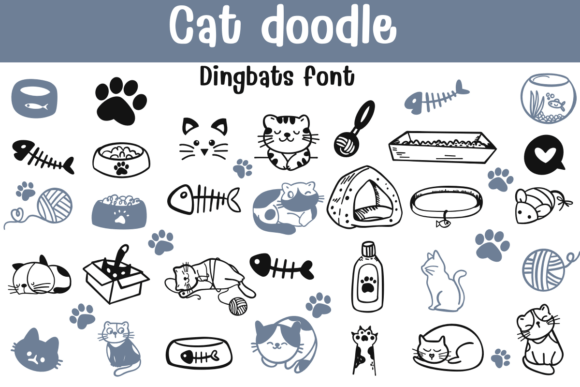
Get Ready to Purr-fect Your Designs with Cat Doodle Font
As a designer, have you ever stared blankly at a blank canvas, trying to come up with the purr-fect idea to showcase your love for cats? We’ve all been there. One day, while browsing through a cat cafe, I stumbled upon a quirky cat-themed illustration that sparked my creativity. I knew right then that I wanted to create something special – a font that captured the whimsy and charm of our feline friends.
Enter the Cat Doodle Font, a delightful dingbats font packed with adorable kitty-themed illustrations. With Cat Doodle Font, designers can add a touch of personality to their designs, from pet store promotions to animal lover’s gifts. Whether you’re a seasoned pro or a beginner, this font is a valuable addition to your design toolkit, offering endless possibilities for creative expression.
Cat Doodle Font Key Features
- Font Styles: Cat Doodle Font comes in multiple styles, including Regular, Bold, Italic, and Bold Italic, offering versatility for various design needs.
- Unique Characteristics: Features a playful, hand-drawn design with doodle-like elements, adding a touch of whimsy and personality to text-based content.
Review of Cat Doodle Font
Overall, I think Cat Doodle Font is a delightful and playful addition to any design project. ✨ The whimsical doodle style is sure to bring a smile to anyone’s face, making it perfect for children’s books, greeting cards, or social media graphics.
The font’s flexibility and versatility are major selling points. ✨ It comes in a variety of weights and styles, from light and cursive to bold and scribbly. This allows designers to experiment with different looks and feels, making it easy to find the perfect fit for their project.
However, there are a few limitations to consider. ⚠️ One major drawback is the font’s limited legibility at smaller font sizes. This can make it difficult to read in certain contexts, such as in body text or headlines.
Additionally, the font’s doodle style can be overwhelming or busy in certain situations. ⚠️ This may not be suitable for designs where a more minimalist or straightforward look is desired.
Final Thoughts
Despite its limitations, I think Cat Doodle Font is a fantastic choice for designers looking to add some personality and whimsy to their projects. With a little creativity and experimentation, it’s easy to find ways to use this font effectively.
- Perfect for children’s books, greeting cards, and social media graphics
- Flexible and versatile, with a variety of weights and styles
- Delightful and playful doodle style
Cat Doodle Font: A Practical Application Guide
To get the most out of the Cat Doodle Font, experiment with different font sizes, colors, and styles. You can also combine the font with other design elements, such as illustrations or graphics, to create visually appealing designs. Additionally, use the font in creative ways, such as in social media posts, blog titles, or product labels.
The Cat Doodle Font is ideal for designs that require a playful, whimsical touch, such as:
- Social media posts and graphics
- Blog titles and headings